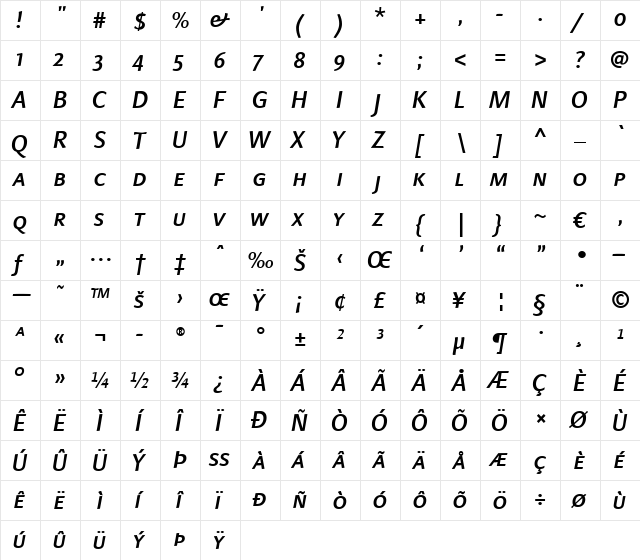
LTFinnegan SC Medium Italic
| Designer | Juergen Weltin |
Design Context for LTFinnegan SC Medium Typeface
LTFinnegan SC Medium offers clean, dependable letterforms without strong stylistic allegiance, making it a practical choice for designers who need flexibility. The slanted form adds forward momentum and visual energy.